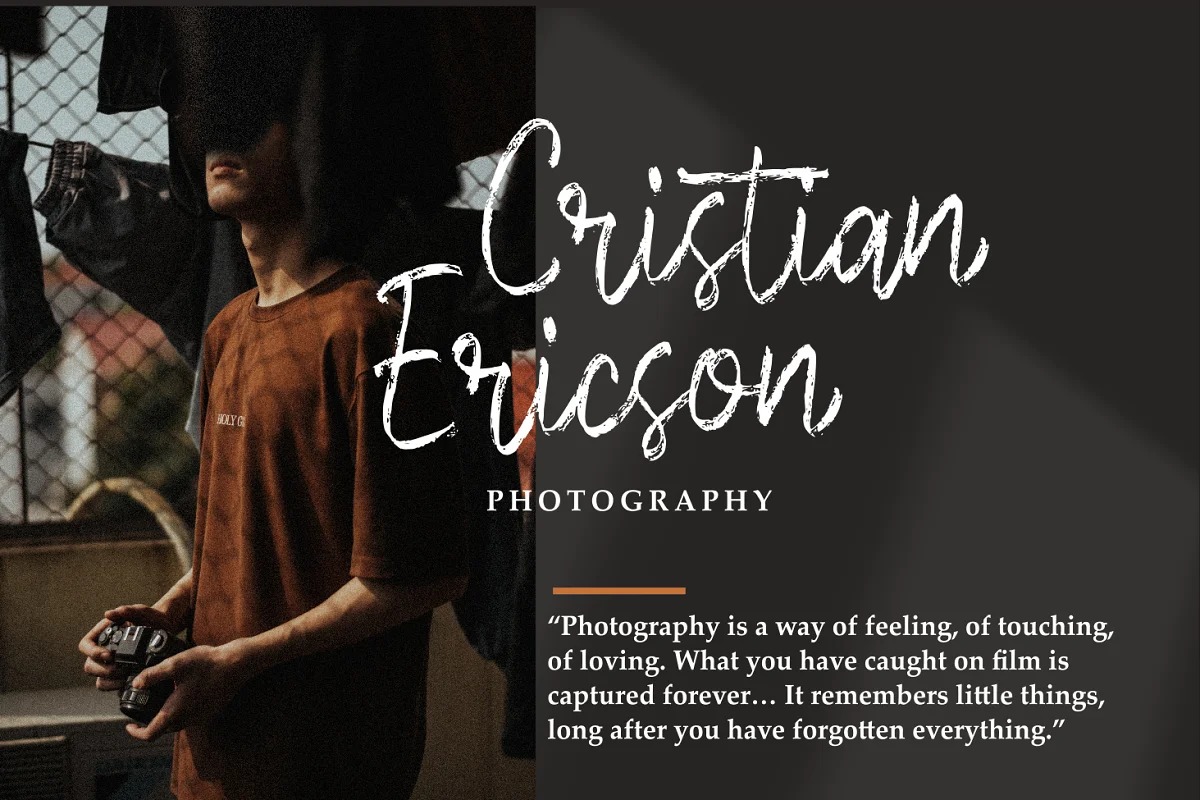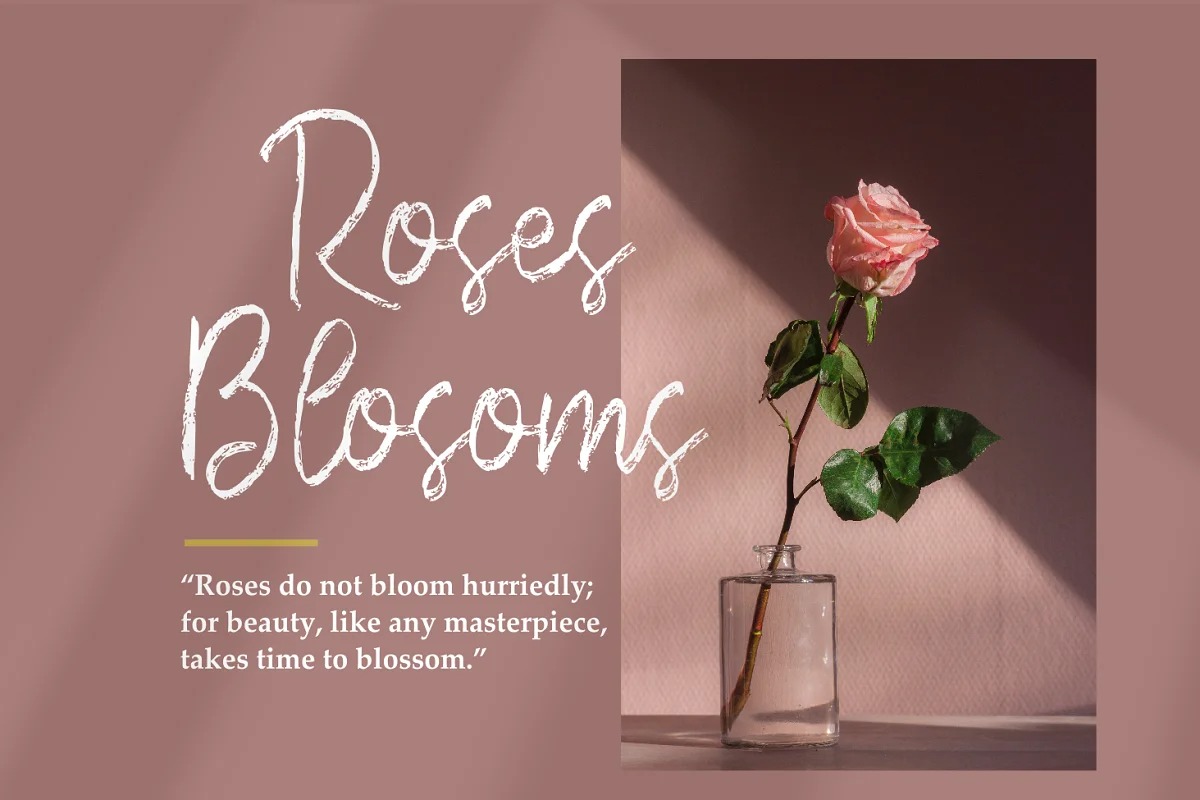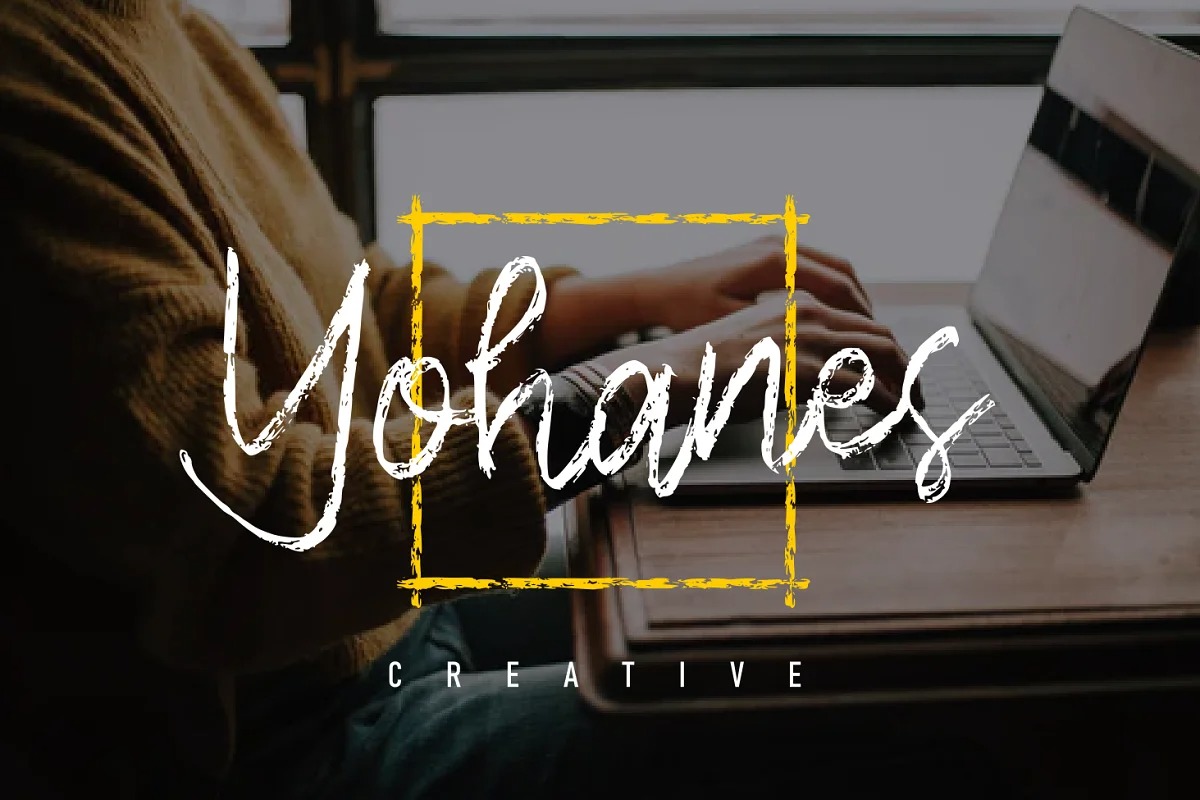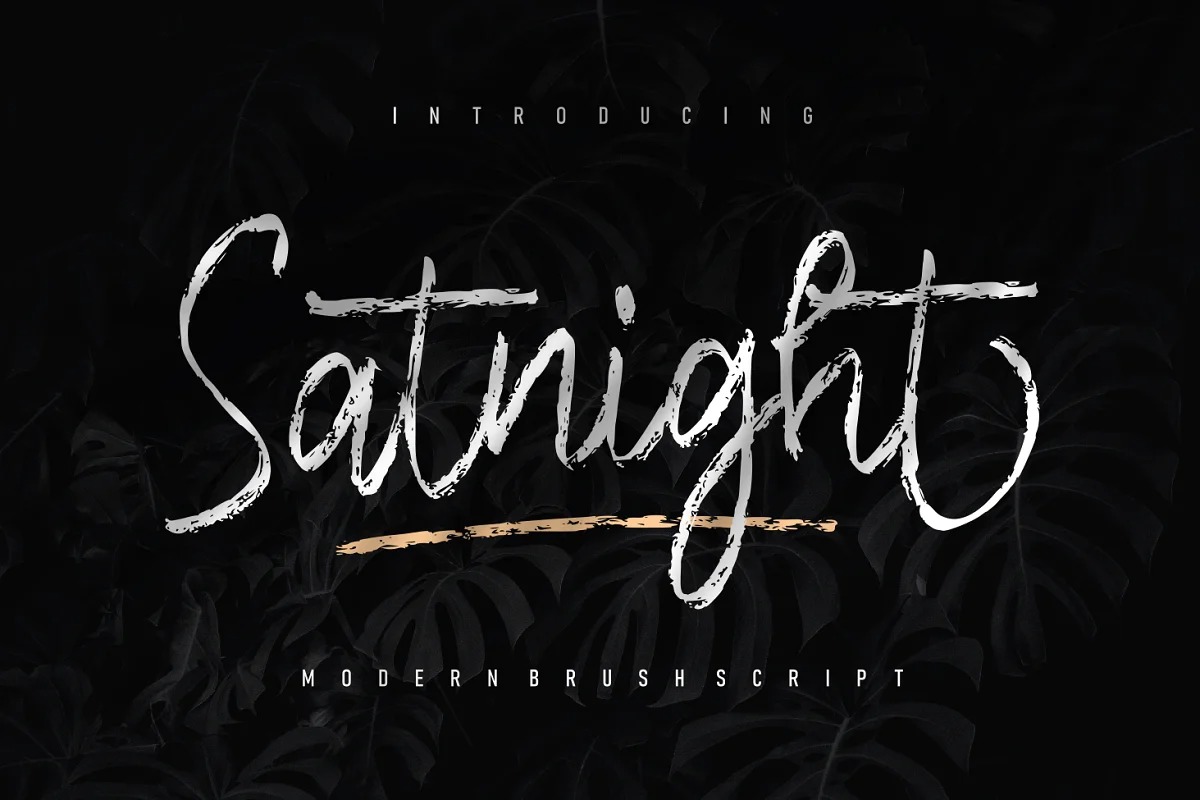
Satnight Font
Satnight Brush Font
This font is a rough brush typeface that is written casually and quickly. It’s designed and shared by zeenesia studio. This is perfect if you don’t really like texturing fonts too much. Satnight suitable for various projects such as stationery invitations, social media, logos, weddings, branding, graphic design with the addition of several binders and swashes. and can be combined with various types of serif fonts to perfect the project you want to work on.